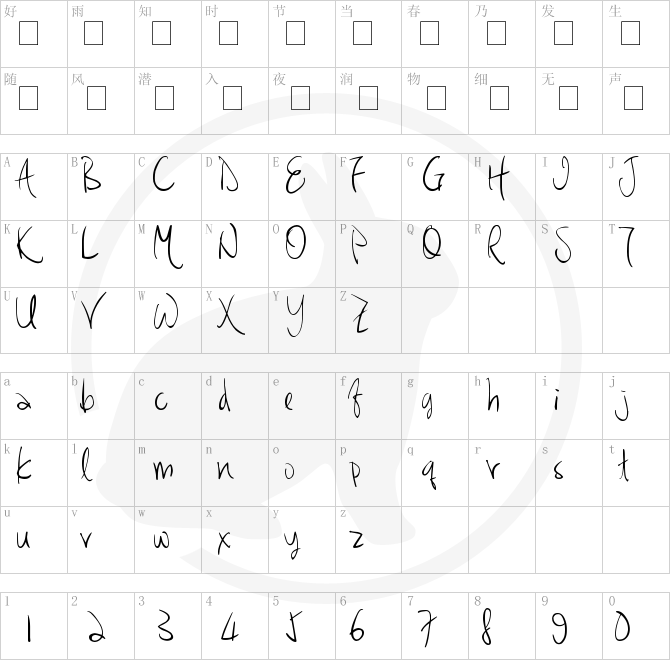
- Font Name:hakee2
hakee2.ttf is a very beautiful artistic font, hakee2.ttf is widely used in the design and printing of various books and pictures,hakee2.ttf has a strong visual impact,hakee2.ttf is a commonly used font in newspapers, magazines and books, and is used in posters, e-commerce Poster design, store design, logo design, font design and other fields.hakee2.